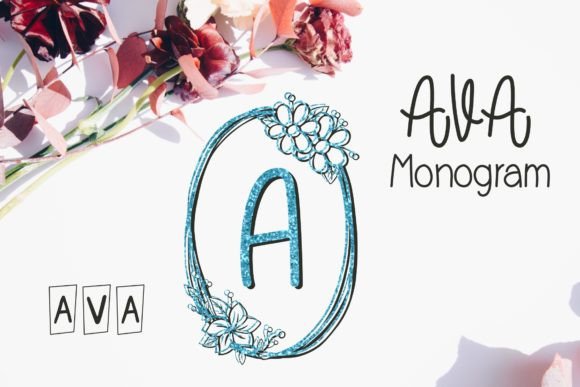
- ✅ Elegant and sophisticated design, perfect for high-end projects
- ✅ Lovely ornaments and swashes to add a touch of personality
- ✅ Highly versatile, suitable for various design applications, from stationery to social media posts
- ✅ Easy to read and works well in both uppercase and lowercase
A Few Quirks to Keep in Mind 🤔
- ⚠️ Some users might find the font a bit too ornate for certain projects
- ⚠️ Limited availability of certain characters, such as ligatures
The Story Behind Ava Monogram
Ava Monogram was designed by a talented typographer who wanted to create a font that would evoke a sense of luxury and sophistication. Inspired by traditional calligraphy and monogramming techniques, Ava Monogram was born. With its elegant lines, beautiful ornaments, and versatile design, it’s no wonder this font has become a favorite among designers and crafters.
| Font Name | Ava Monogram Font |
| Author | DREAMs Soul G. |
Q: What makes Ava Monogram so special?
A: Ava Monogram’s unique blend of elegance and playfulness, combined with its highly versatile design, makes it a standout font.